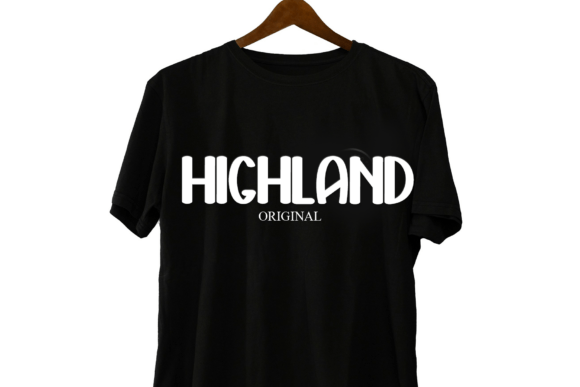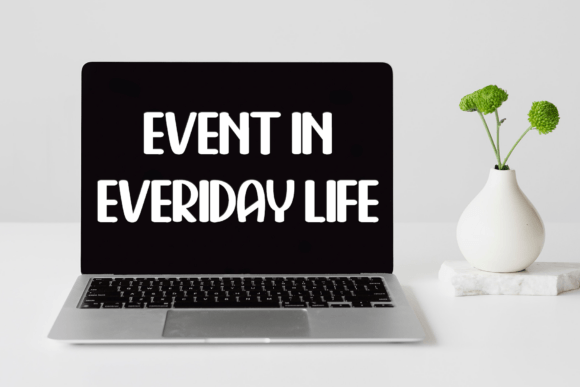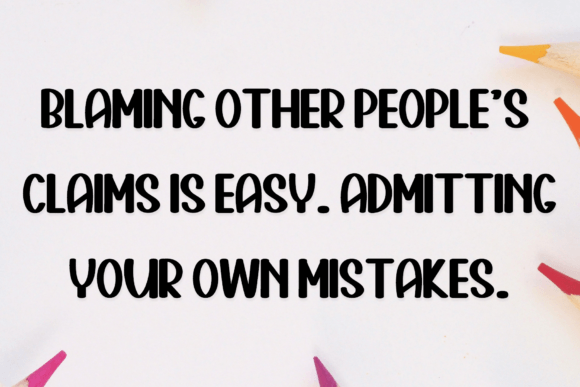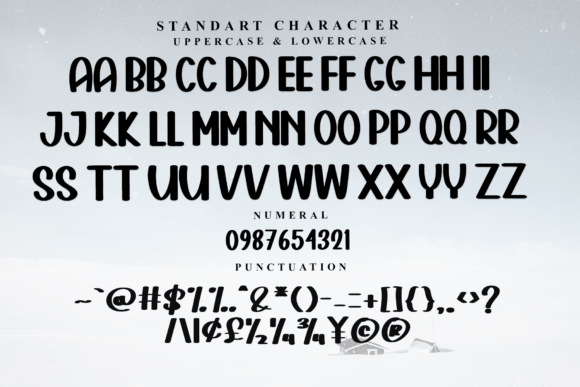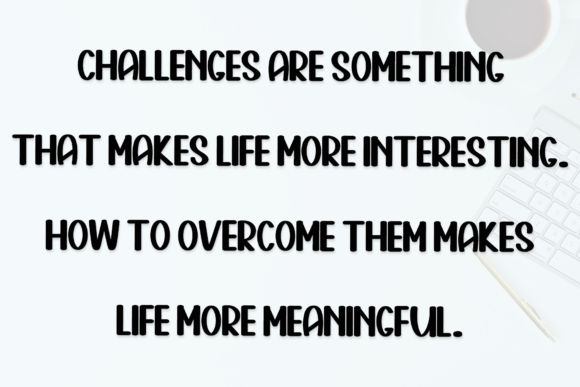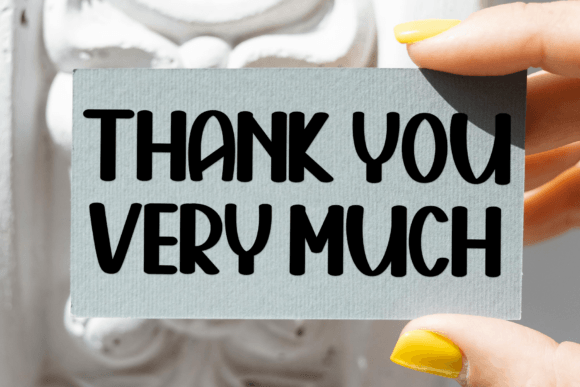
Introduction to Simple Break Font
Simple Break is a sweet and friendly handwritten font.
Key Features of Simple Break Font
Simple Break Font offers exceptional quality and versatility, making it a valuable addition to your design toolkit. Whether you’re creating for personal projects or commercial use, Simple Break Font delivers professional results.